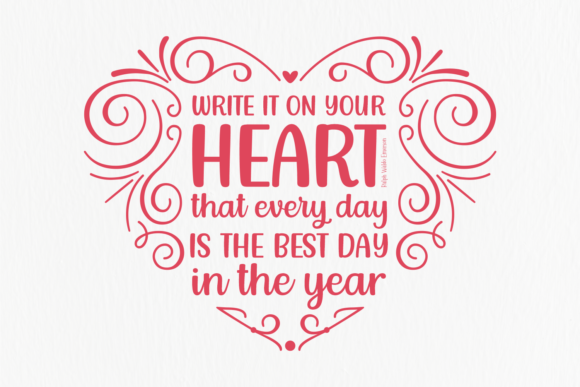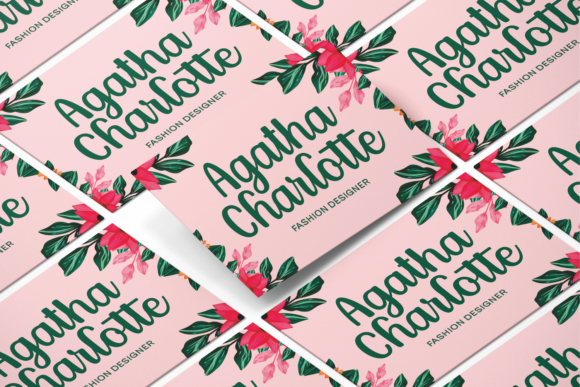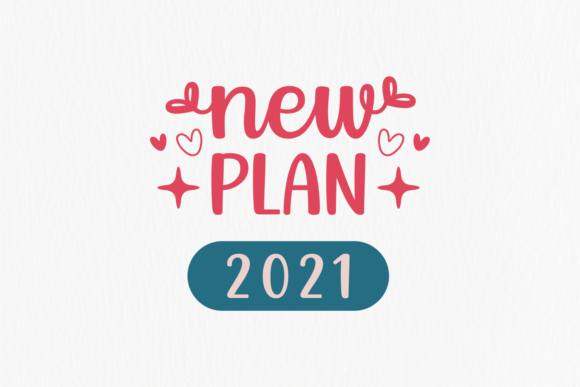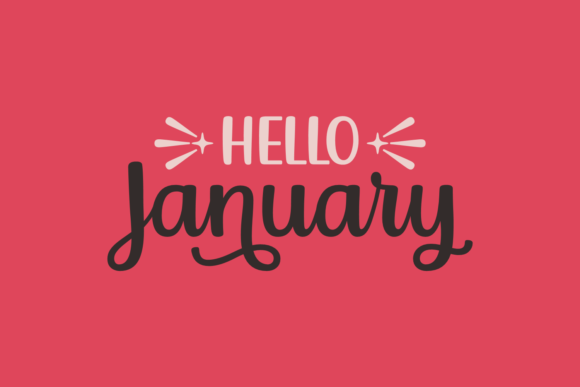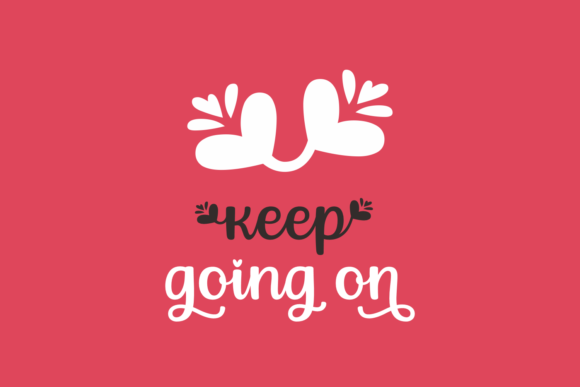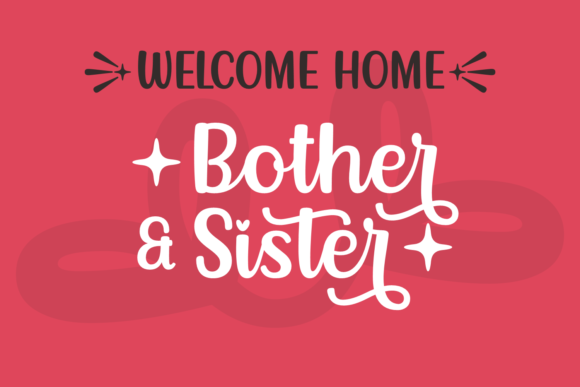
Introduction to Katrin Gliffe Font Font
Fonts play a crucial role in design, and the Katrin Gliffe Font font is a typeface that brings both character and versatility to any project. Whether you’re working on a branding project, a website, or a print design, the Katrin Gliffe Font font offers a unique style that can elevate your work.
Katrin Gliffe is a playful script font with a contemporary atmosphere and impeccable form, inspired by timeless classic calligraphy.
Not too thin and not too thick, balanced and varied, this font was designed to enhance the beauty of your projects .
Key Features of Katrin Gliffe Font Font
Why Choose Katrin Gliffe Font Font?
The Katrin Gliffe Font font is more than just a typeface – it’s a design tool that helps you communicate your message with style and clarity. Its unique character set and versatile design make it suitable for a wide range of applications, from elegant invitations to bold headlines.
With its carefully crafted letterforms and balanced proportions, the Katrin Gliffe Font font ensures readability and visual appeal across all mediums.
What makes Katrin Gliffe Font font special?
The Katrin Gliffe Font font stands out with its unique design, exceptional readability, and versatility across various design applications.